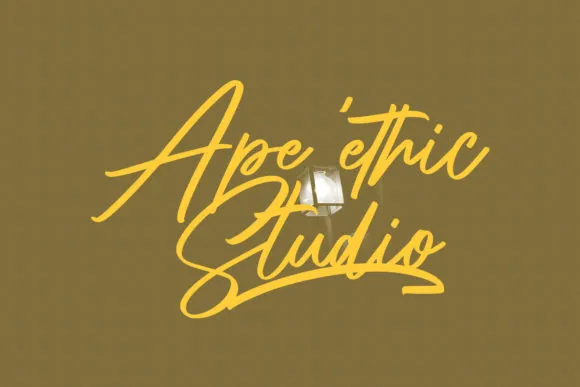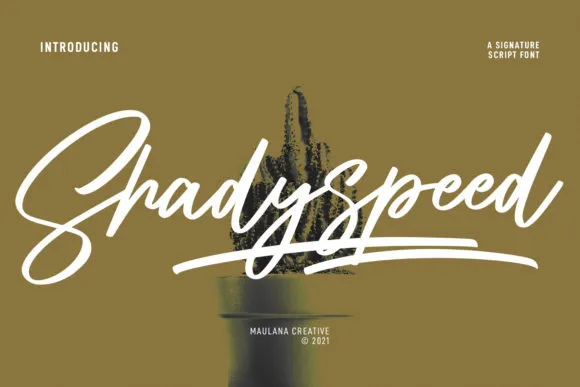
Shadyspeed Font is a mark script text style. Interestingly, ordinary stroke, fun person with a touch of ligature and has two documents lowercase substitutes and swashes.
This text style is an ideal fit for logo plan, Web-based entertainment, Film Titles, and Books Titles. Make a shocking work with Shadyspeed Font.